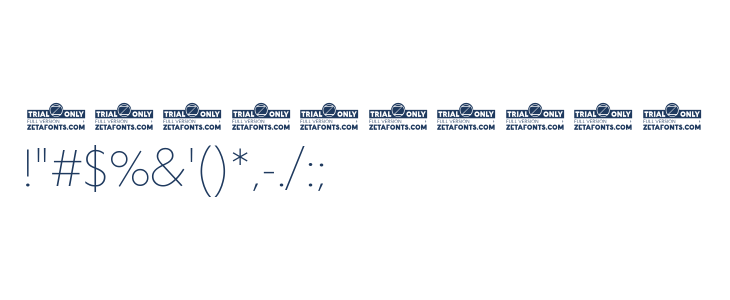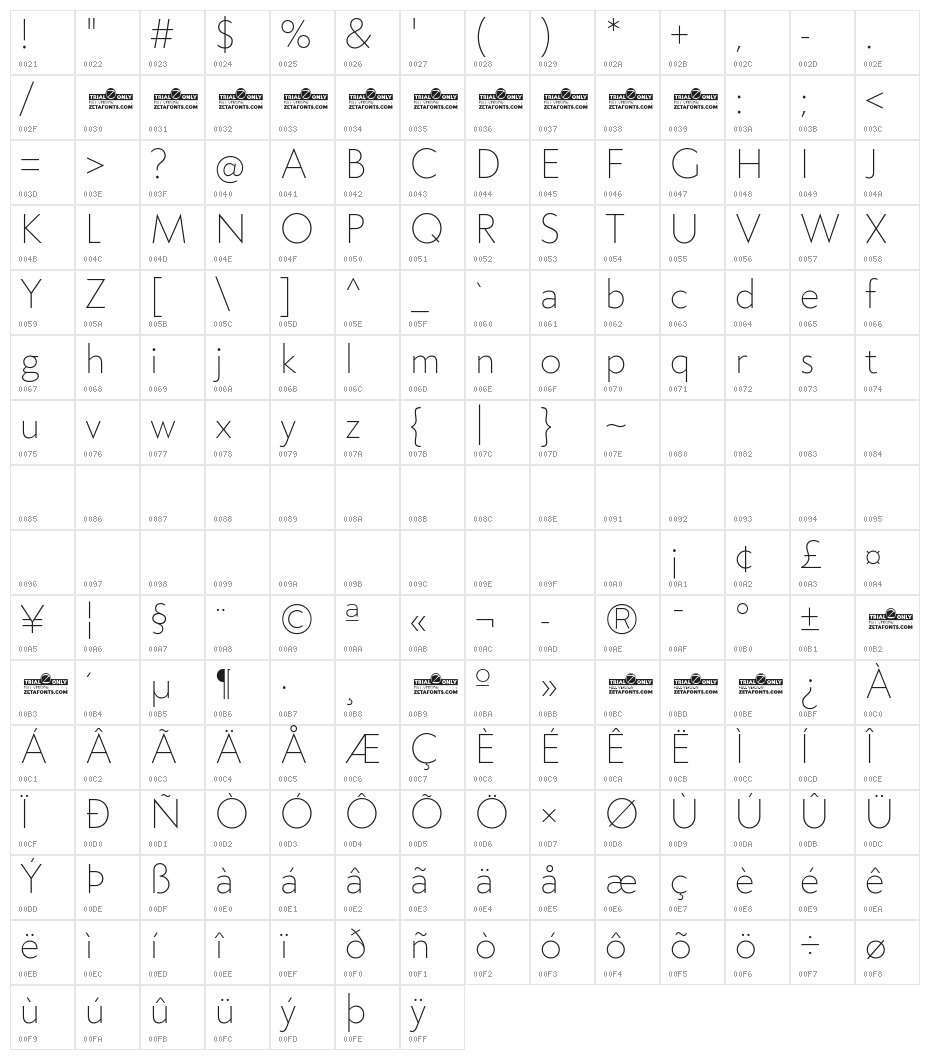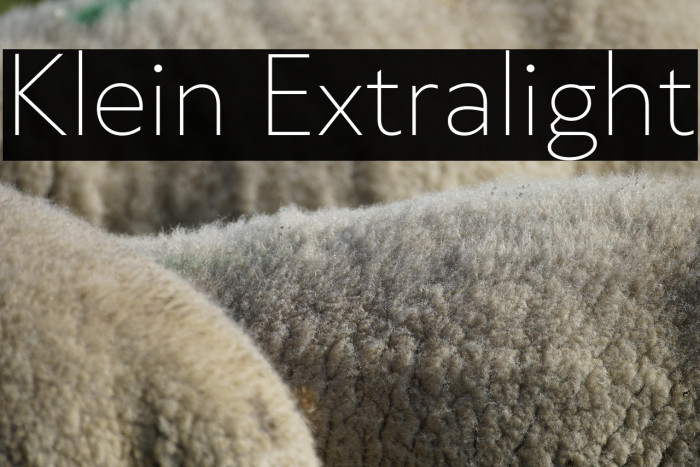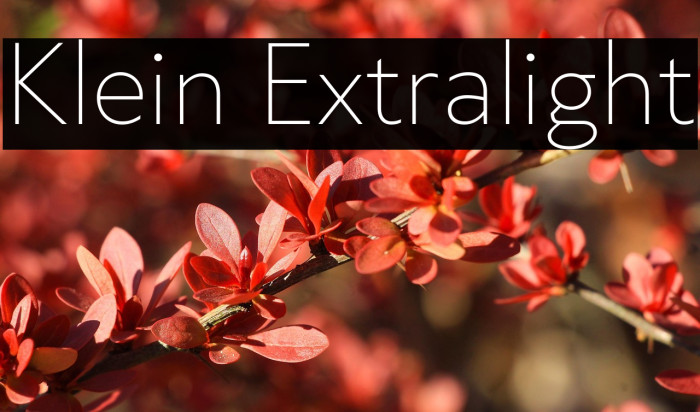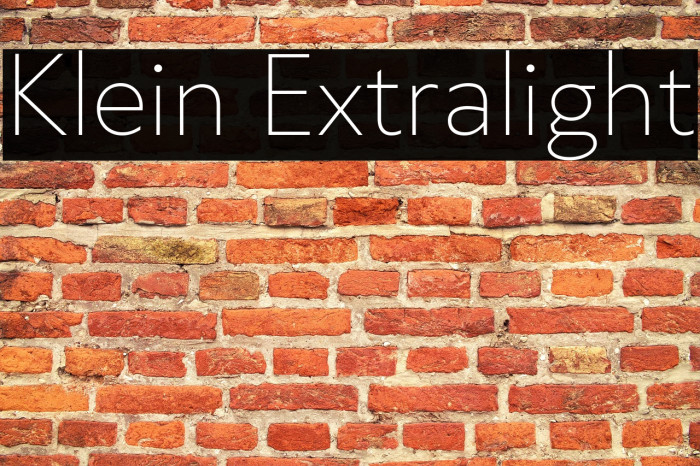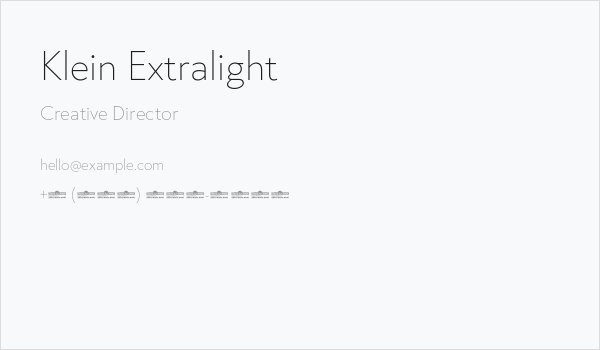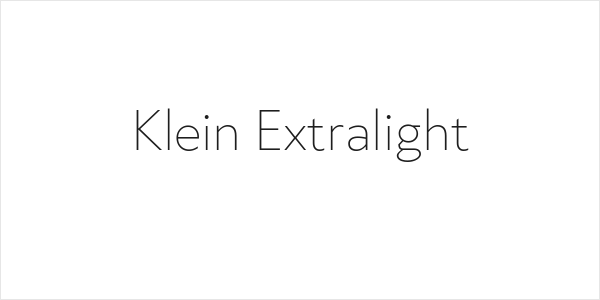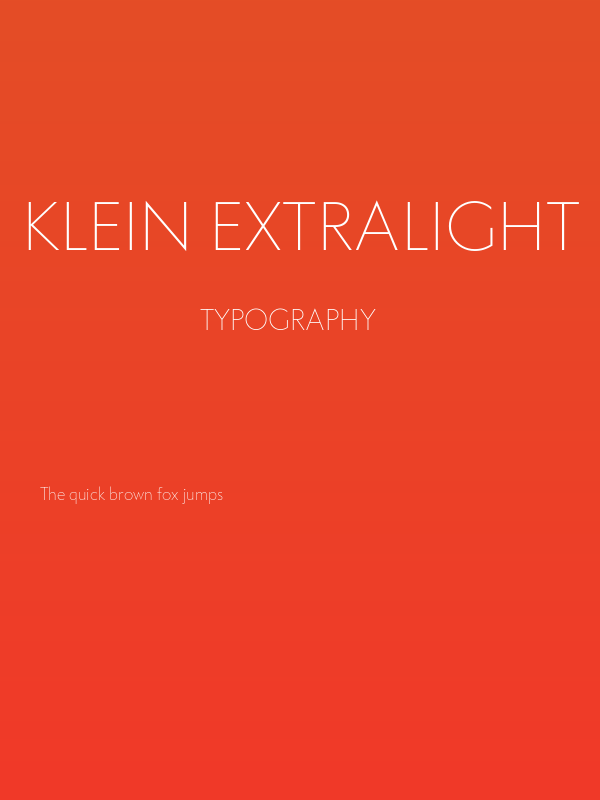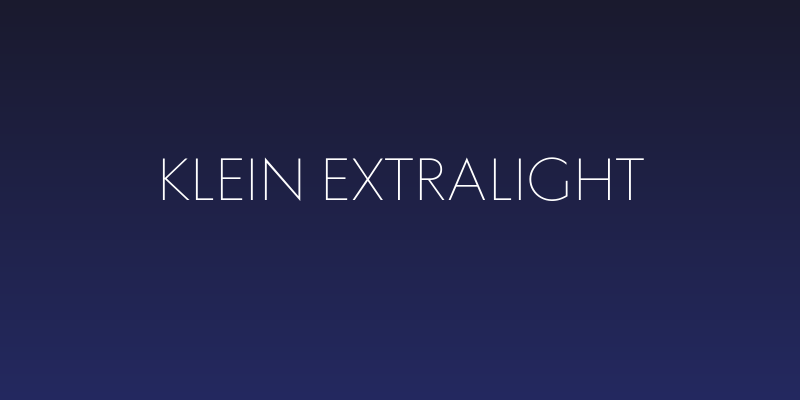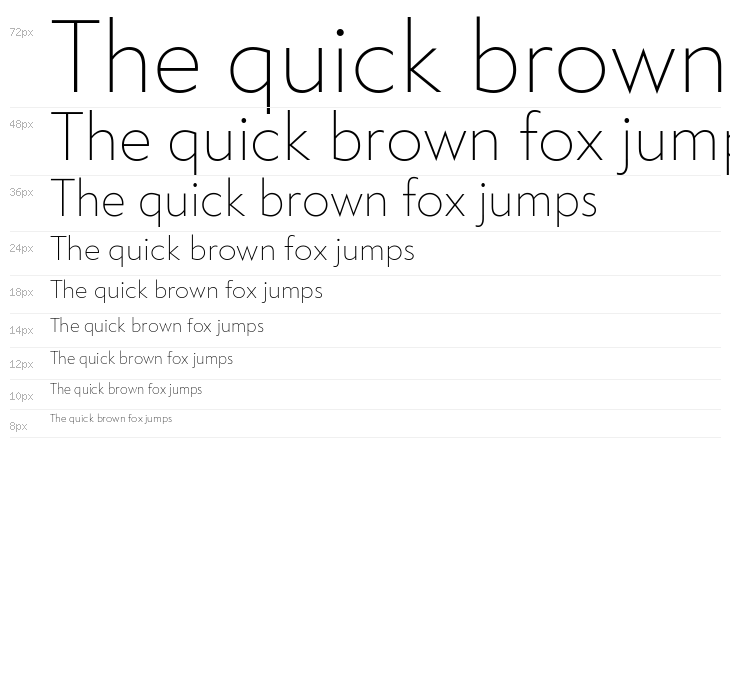
Klein Extralight Font
Klein Extralight Description
This font features a sleek and minimalist design with clean lines and a modern aesthetic. The characters are thin and elongated, giving it an elegant and sophisticated appearance. The uppercase and lowercase letters maintain a consistent style, with a uniform stroke width that contributes to its refined look. The numerals and special characters are designed to complement the overall style, ensuring readability and visual harmony. This font is ideal for projects that require a contemporary and stylish touch.
| Use Case | Headlines, Body text, Logos |
| Proposed Projects | Ideal for branding, editorial design, websites, and modern advertising campaigns. |